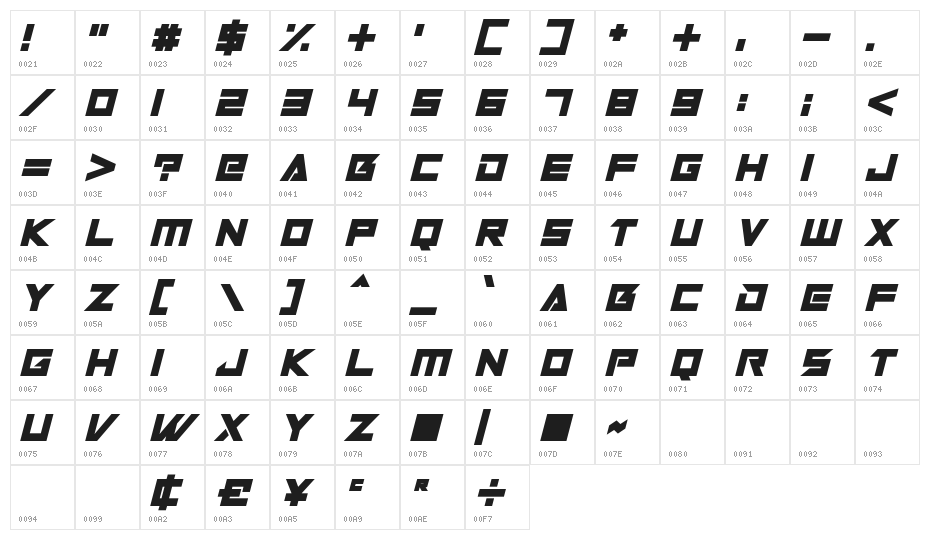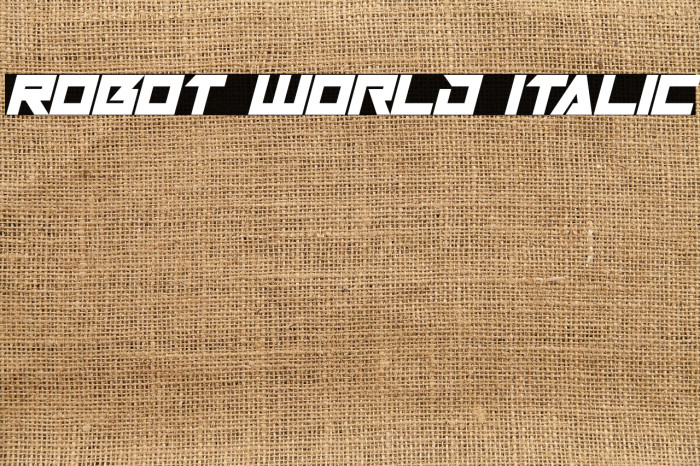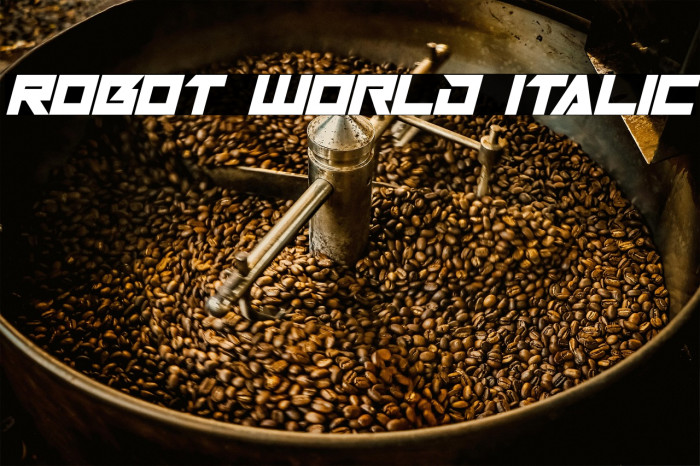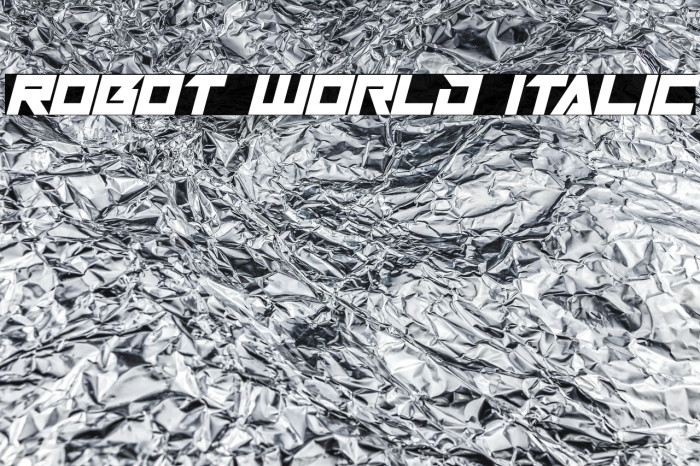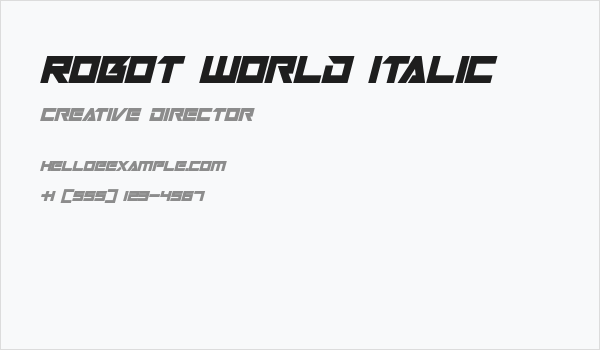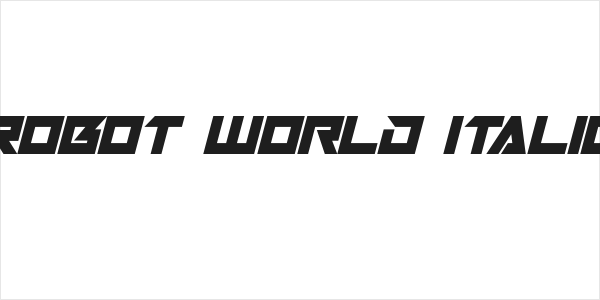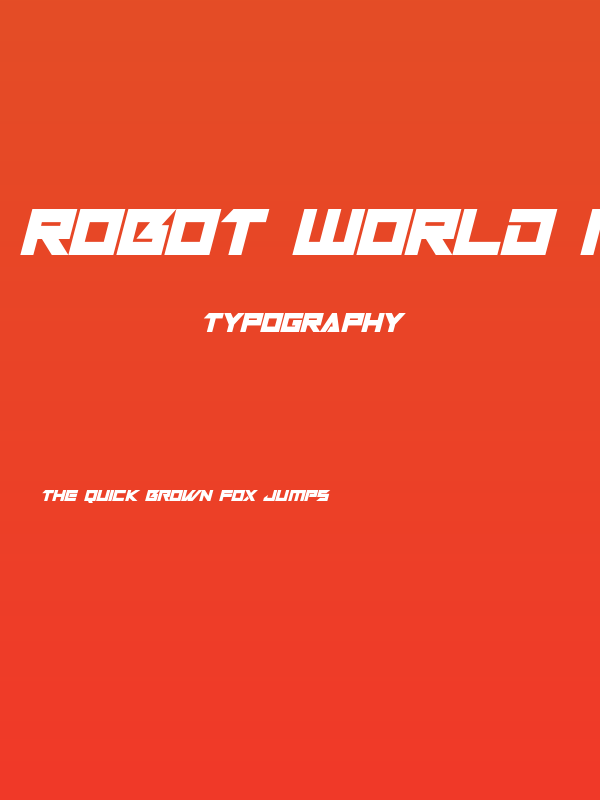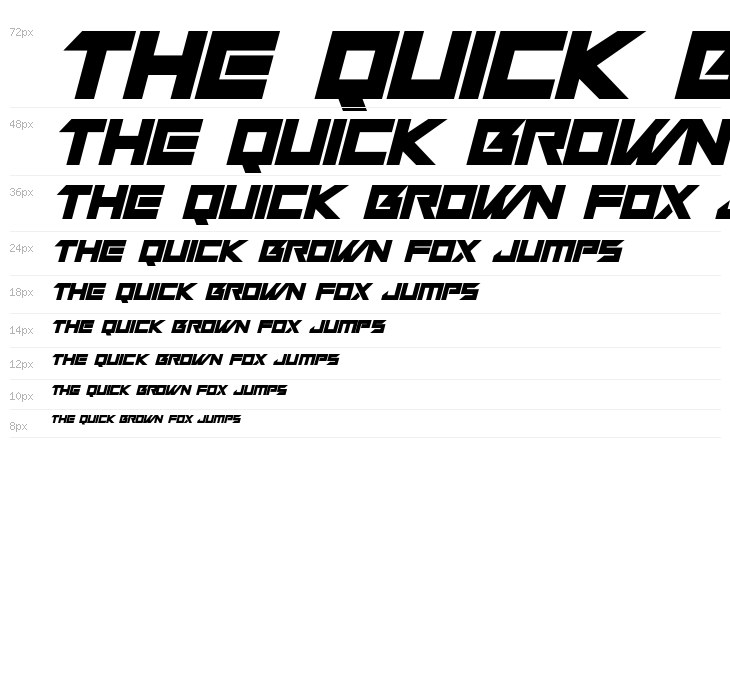
Robot World Italic Font
Robot World Italic Description
This font features a futuristic and angular design, characterized by sharp edges and a dynamic slant that conveys motion and modernity. The uppercase and lowercase letters maintain a consistent geometric style, with each character exhibiting a bold and assertive presence. The numerals and special characters are crafted with the same attention to angularity and sleekness, making them ideal for projects that require a cutting-edge aesthetic. The italic nature of the font adds an additional layer of dynamism, enhancing its suitability for technology-themed designs or branding that seeks to evoke a sense of innovation and forward-thinking.
| Proposed Projects | Ideal for technology branding, sci-fi movie posters, video game titles, and modern digital interfaces. |